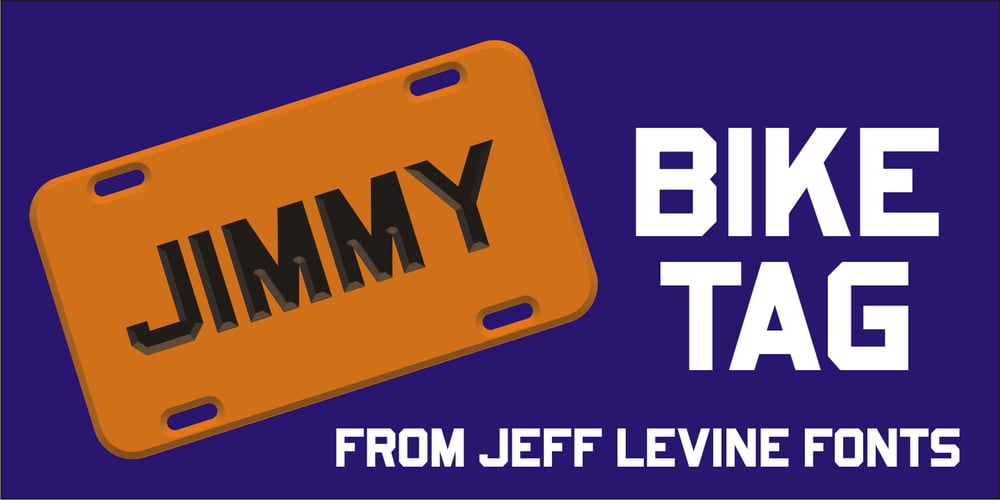
Bike Tag JNL Font Family was designed by Jeff Levine and published by Jeff Levine. Bike Tag JNL contains 1 styles and family package options. The simple, chamfered lettering of Bike Tag JNL was based on a 1950s-era metal bicycle tag with self-adhesive letters that kids could customize with their name or any short words.